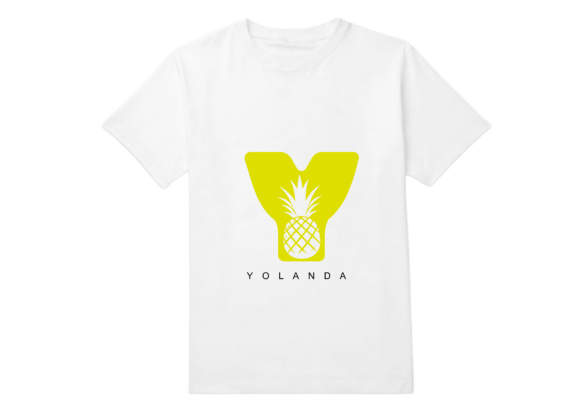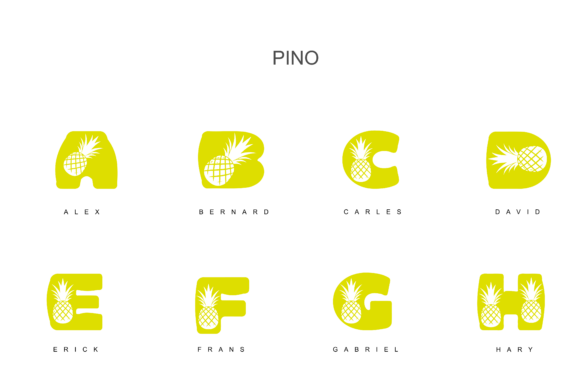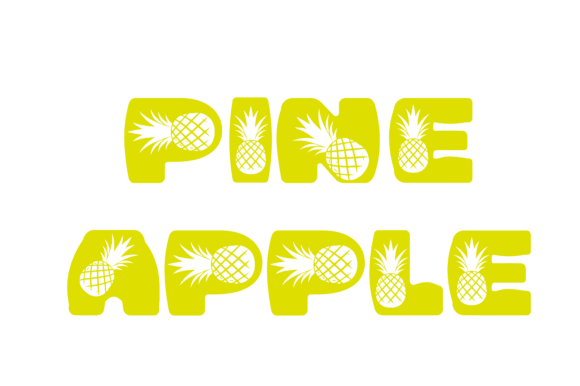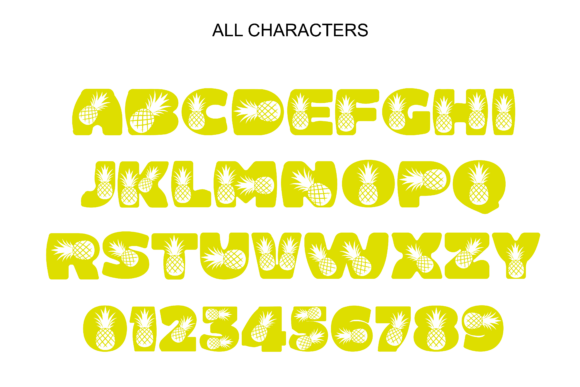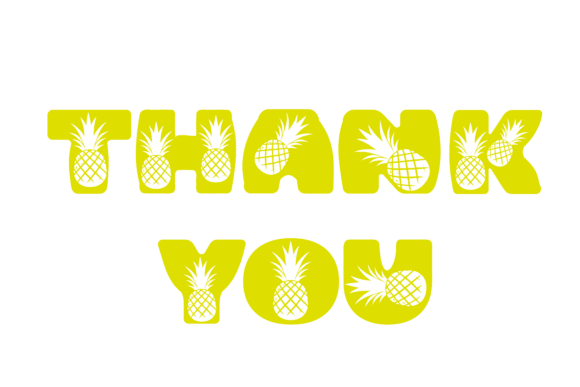
Introduction to Pino Font
Welcome to the enchanting realm of Pino, a typeface that marvelously captures the awe and thrill of a child’s wide-eyed wonder.
Born from a wellspring of juvenile imagination, Pino fuses delightful glyphs with lively letterings, transforming ordinary characters into tantalizing visual treats Pino is a symbol of supreme artisanship and meticulous design, striking a perfect balance for a myriad of creative pursuits.
Key Features of Pino Font